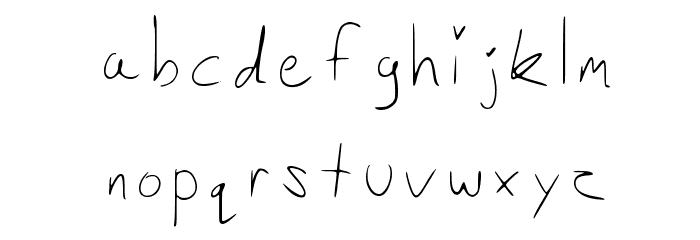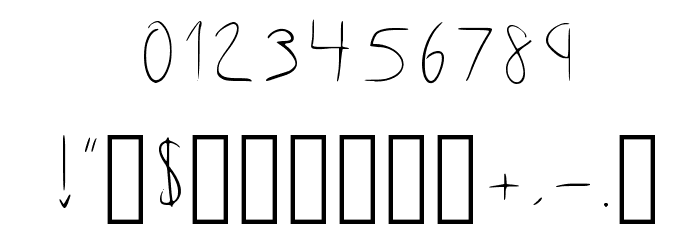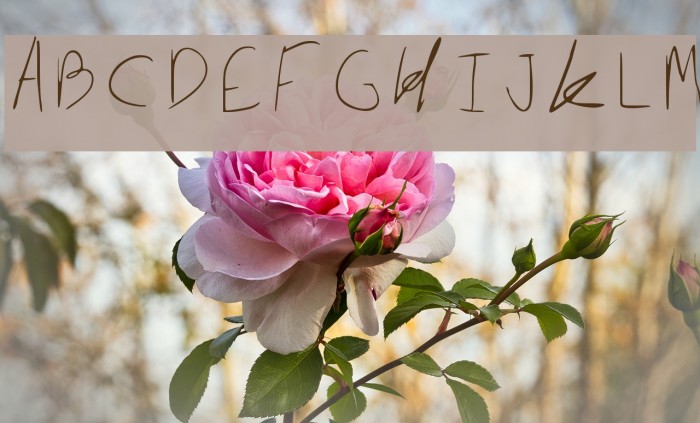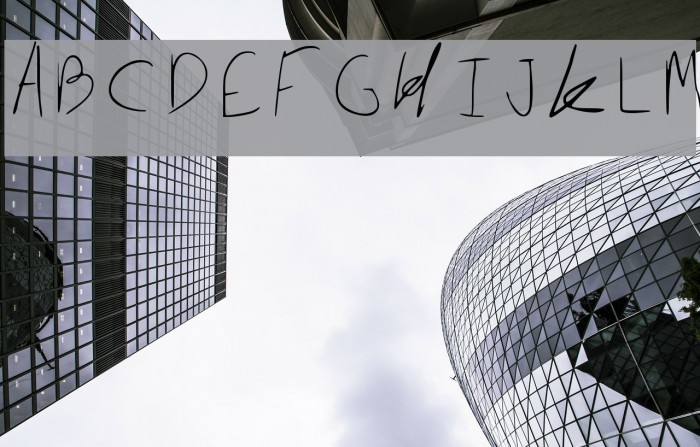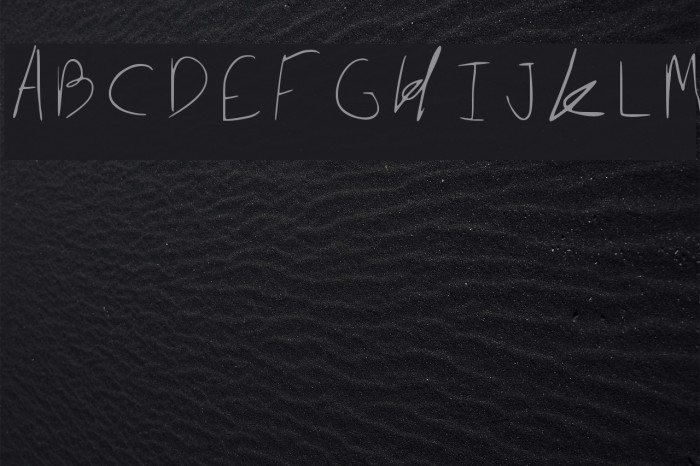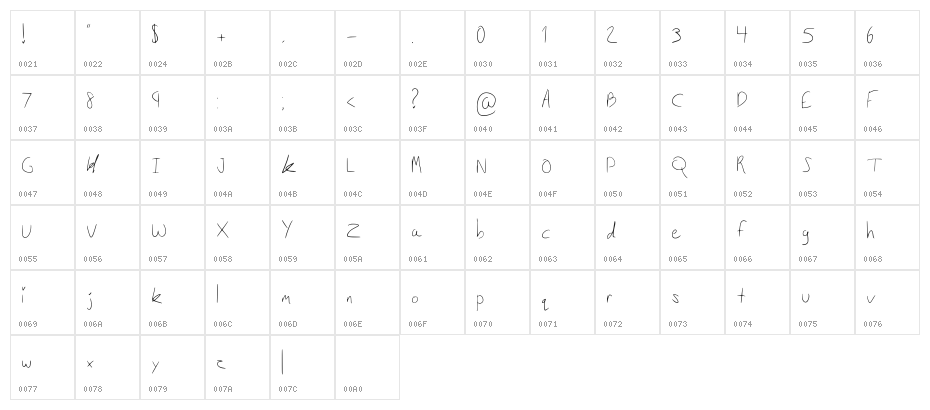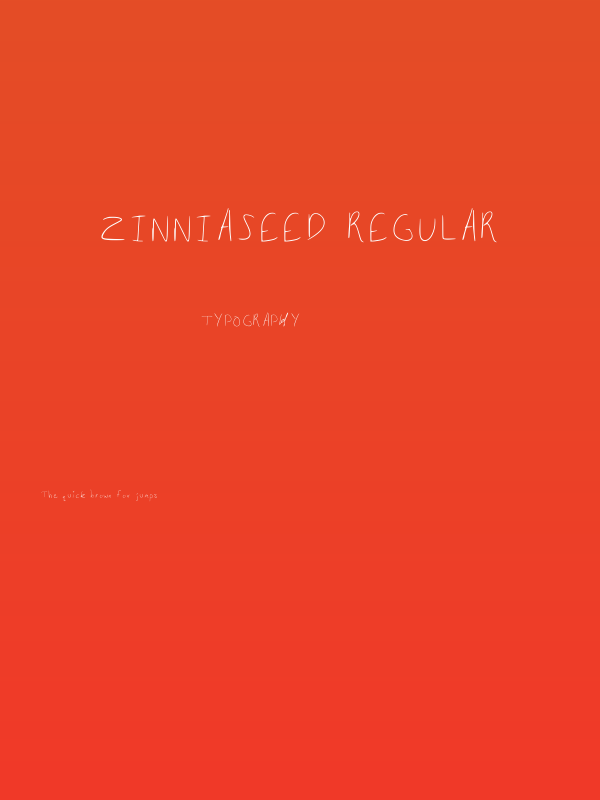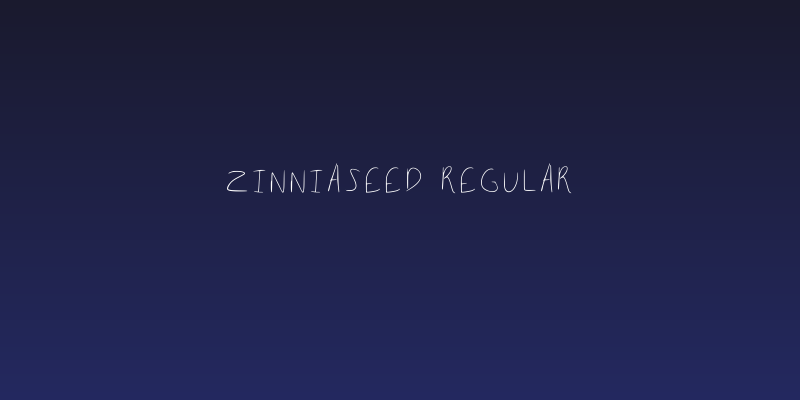
Zinniaseed Regular Font
This font exudes a casual, handwritten style with a playful and informal appearance. The letters are slightly irregular, mimicking the natural flow of handwriting. The strokes are thin and vary in thickness, adding a touch of dynamism and personality. The uppercase letters maintain a consistent height, while the lowercase letters have a charming, slightly uneven baseline. The numerals are clear and legible, matching the overall whimsical style. Special characters are included, maintaining the same handwritten aesthetic. This font is ideal for projects that require a personal touch or a relaxed, approachable feel.
A playful, handwritten font with thin, dynamic strokes and a casual style.
- Proposed Projects: Greeting cards, personal blogs, informal invitations, children's books, and creative branding.
- Overall Style: Casual, Playful
- Use Case: Headlines, Informal text, Creative projects